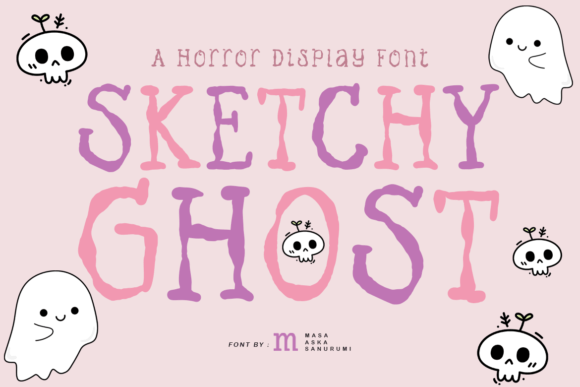
Embark on a spine-tingling adventure with Sketchy Ghost Font, the epitome of horror and mystery. This tantalizing display font, crafted by the visionary Masa Aska Sanurumi, is an enigmatic dance between the macabre and the captivating.
Immerse yourself in the unsettling beauty of Sketchy Ghost, where each letter is a haunting apparition, evoking an eerie atmosphere that will send shivers down your spine. This font is not for the faint of heart; it's a masterpiece designed to leave a lasting impression on all who encounter it.
Indulge in the limitless possibilities that Sketchy Ghost Font offers. Whether you seek to create chilling posters, spine-tingling book covers, or captivating Halloween invitations, this font will elevate your designs to new heights of terror. Its versatility is as boundless as your imagination, making it an essential tool for any horror enthusiast.
Don't settle for ordinary fonts that blend into the shadows. Embrace the allure of Sketchy Ghost Font and unleash your creativity. Its haunting beauty will captivate your audience, leaving them breathless with anticipation.